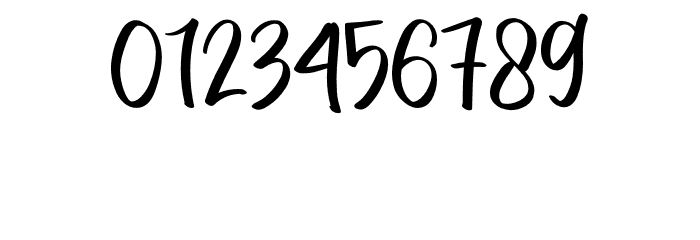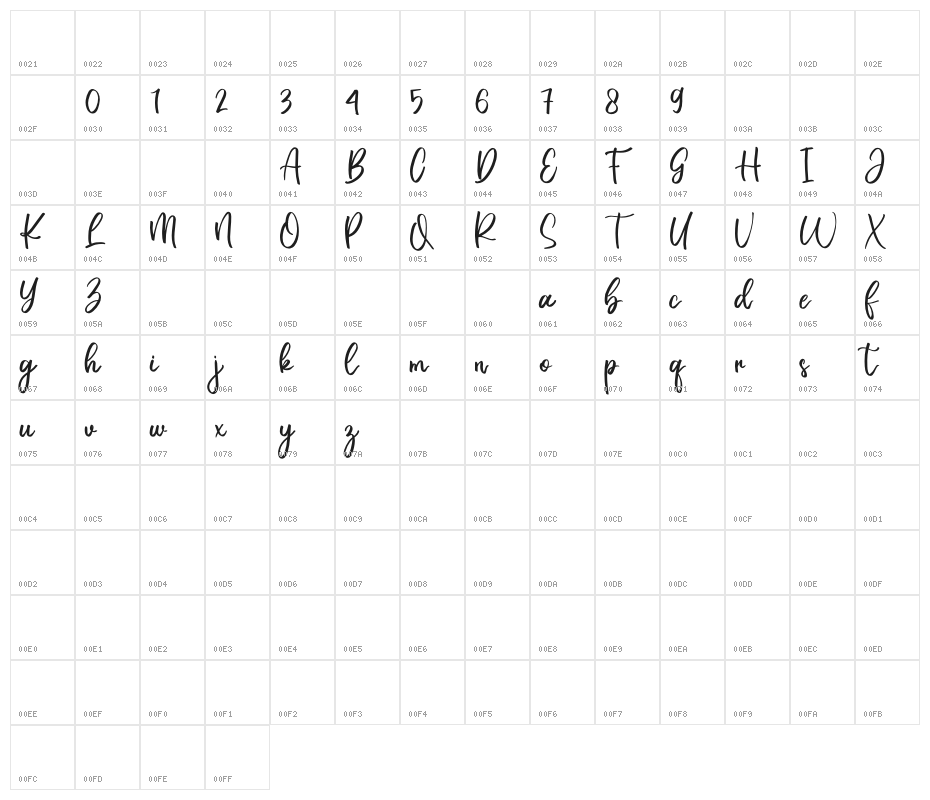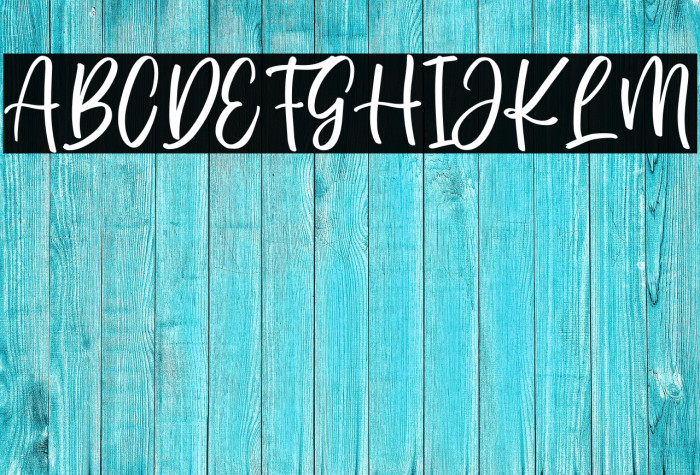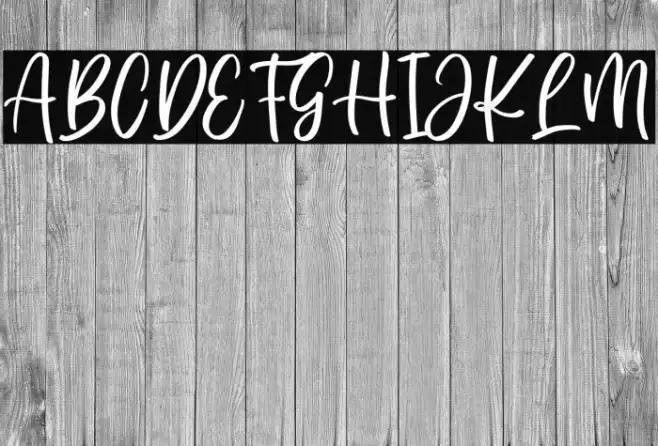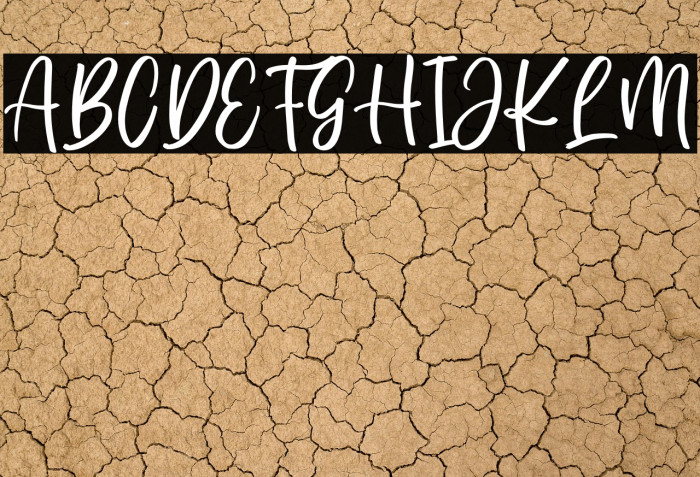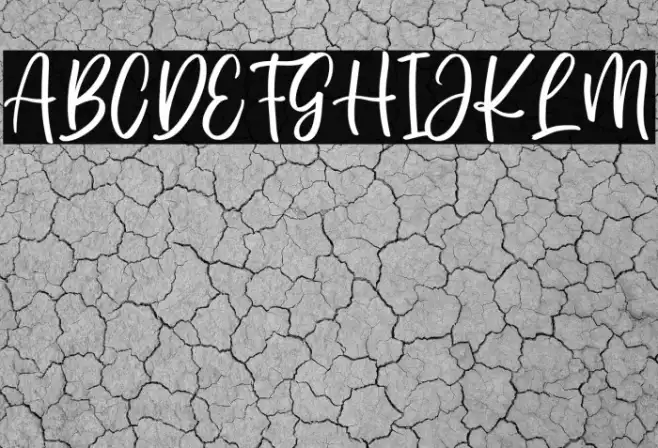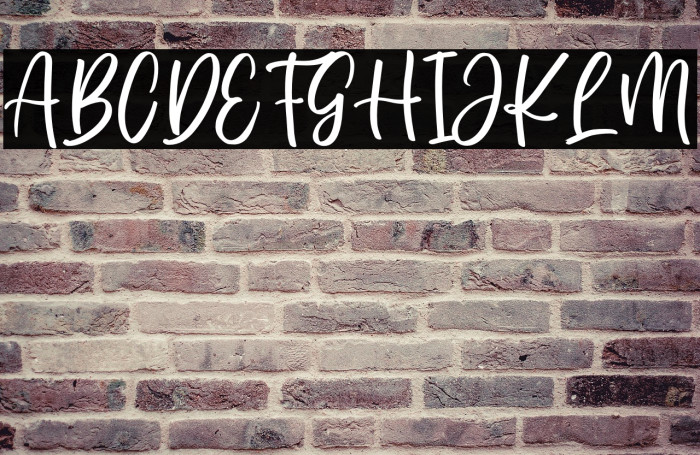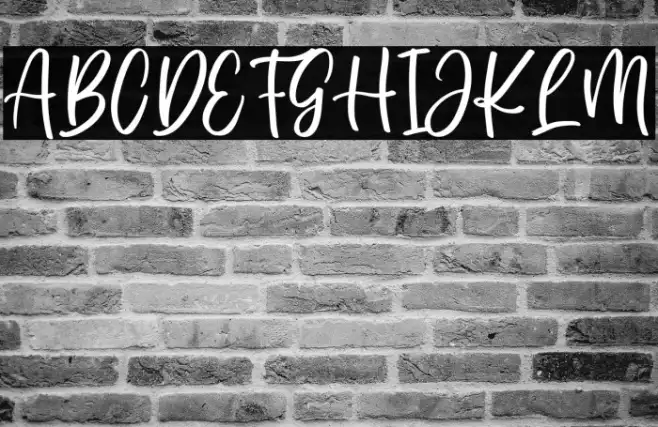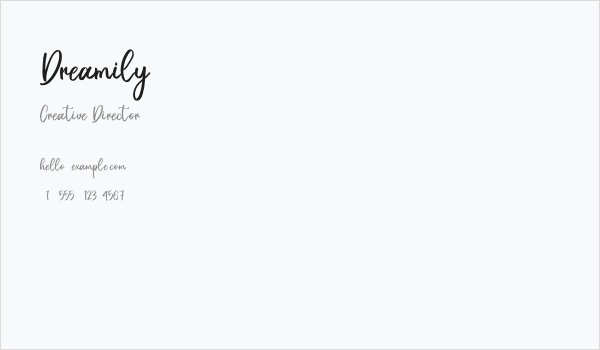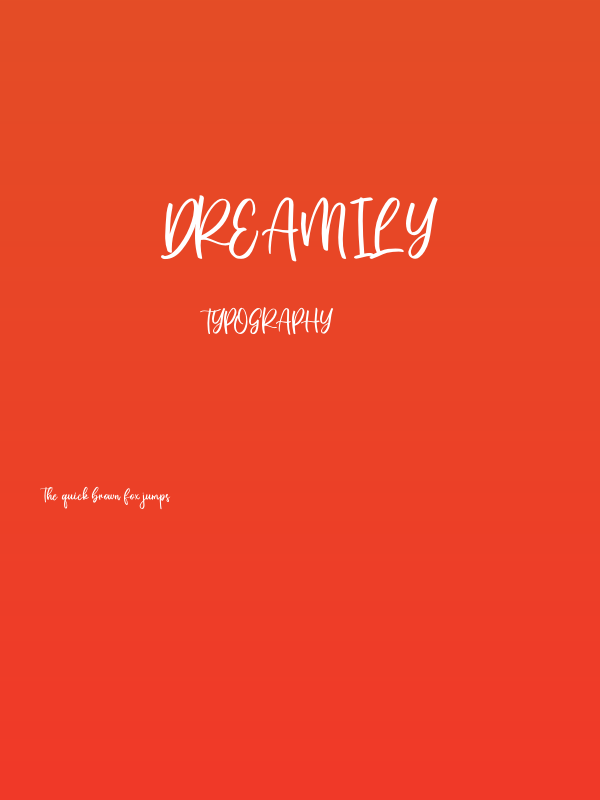
Dreamily Font
Dreamily Description
This font exudes a playful and whimsical charm, characterized by its flowing, cursive style. The uppercase letters are bold and slightly slanted, giving them a dynamic and energetic appearance. The lowercase letters maintain a consistent fluidity, with loops and curves that add a touch of elegance. The numbers are clear and legible, complementing the overall style. The special characters blend seamlessly with the alphabet, maintaining the font's cohesive look. This font is perfect for projects that require a personal, handwritten touch, such as invitations, greeting cards, or creative branding.
| Proposed Projects | Ideal for invitations, greeting cards, creative branding, and personal projects. |